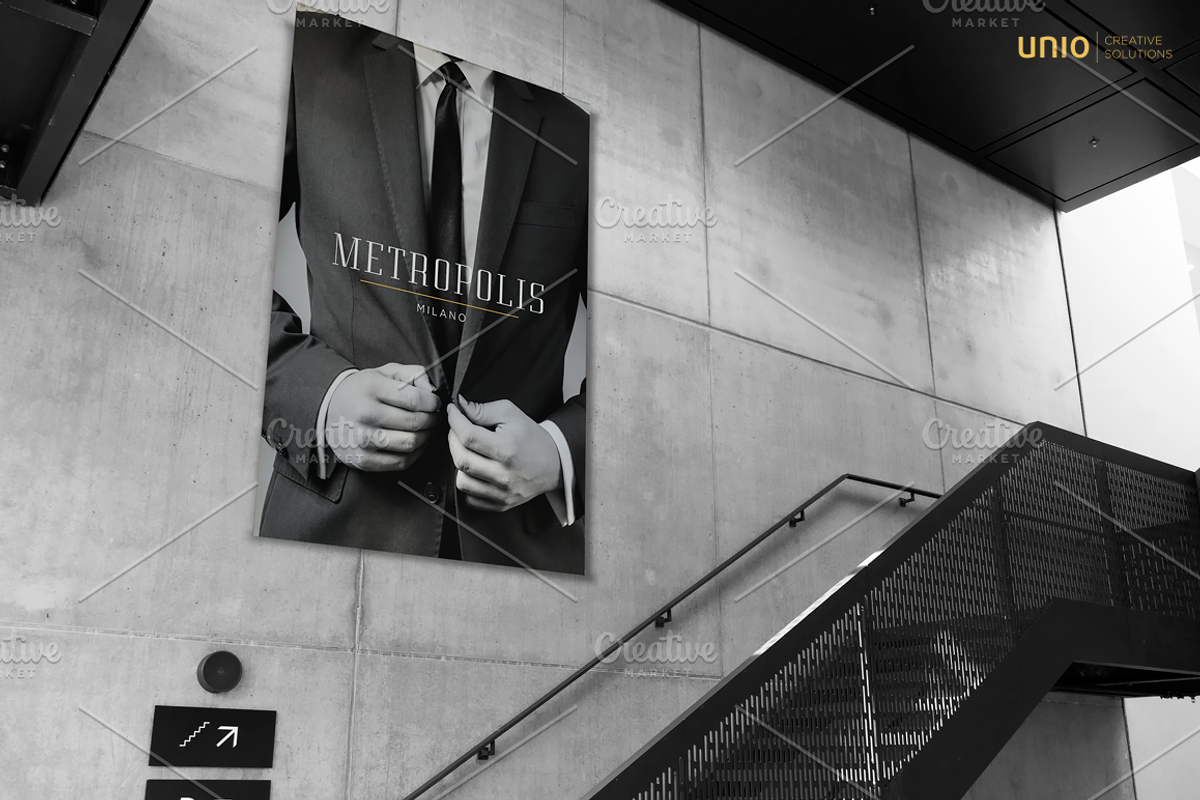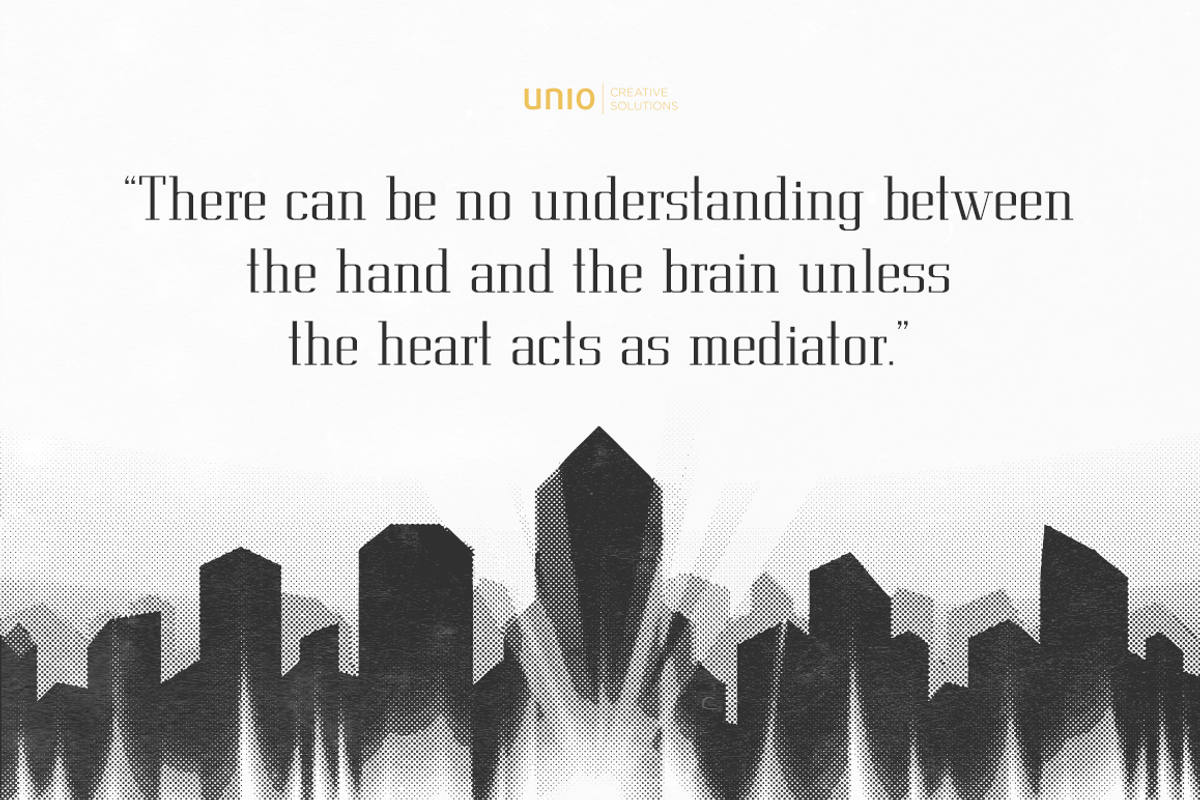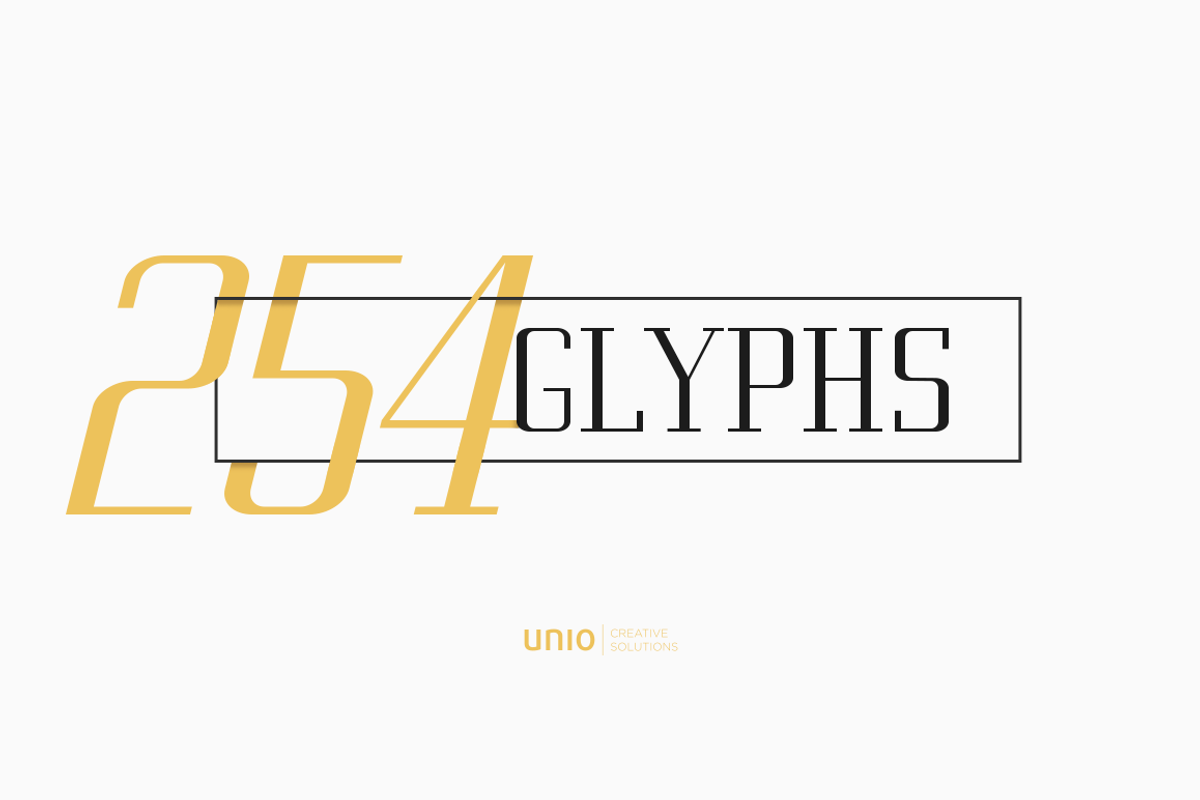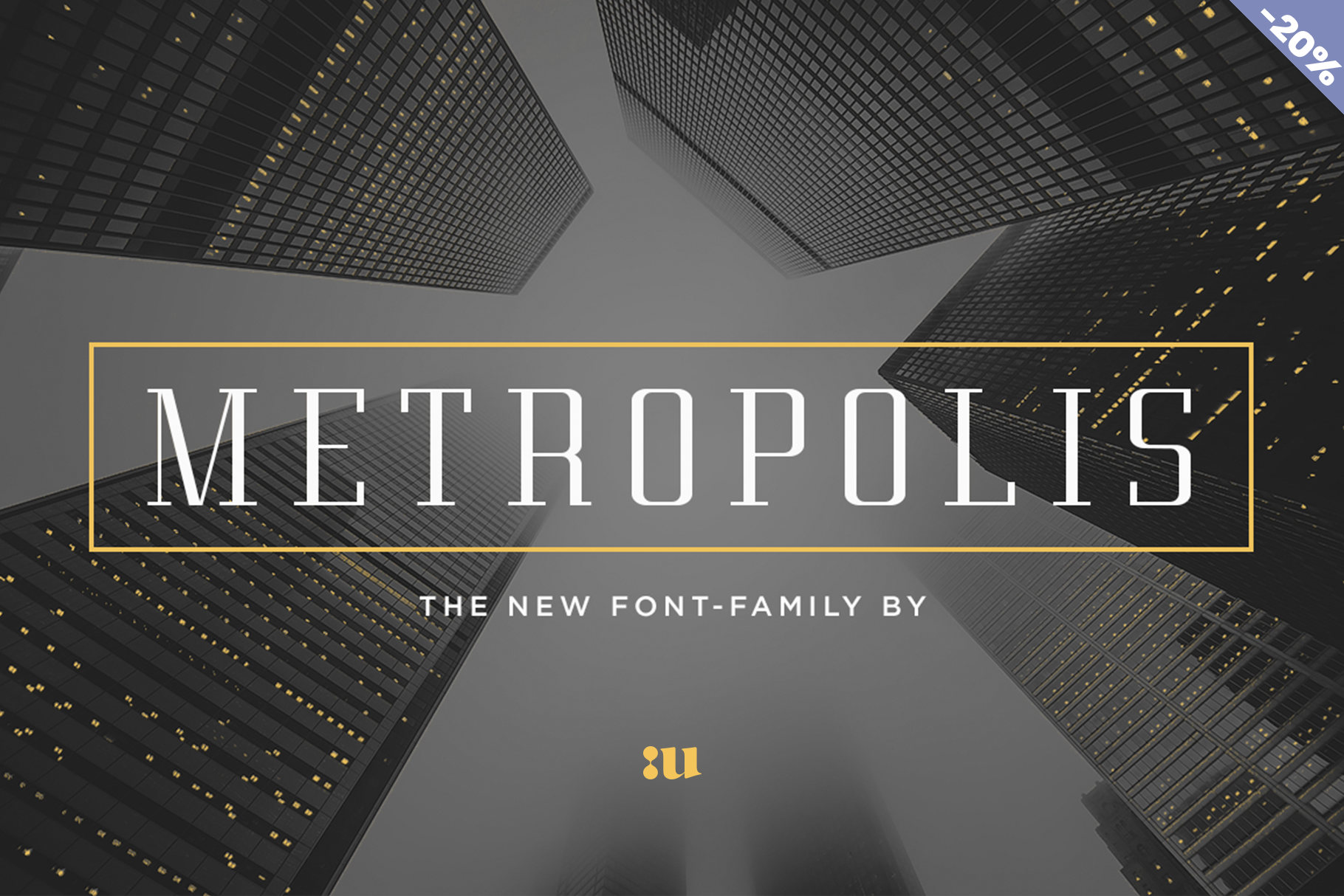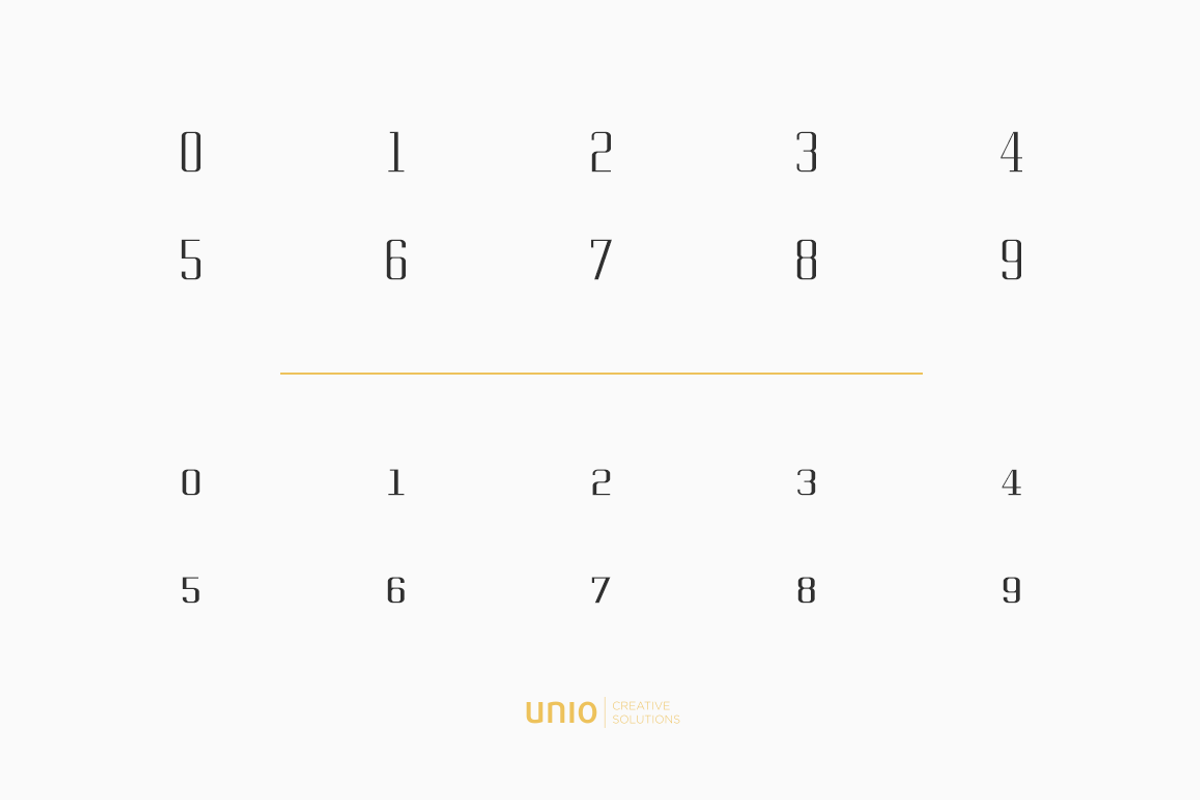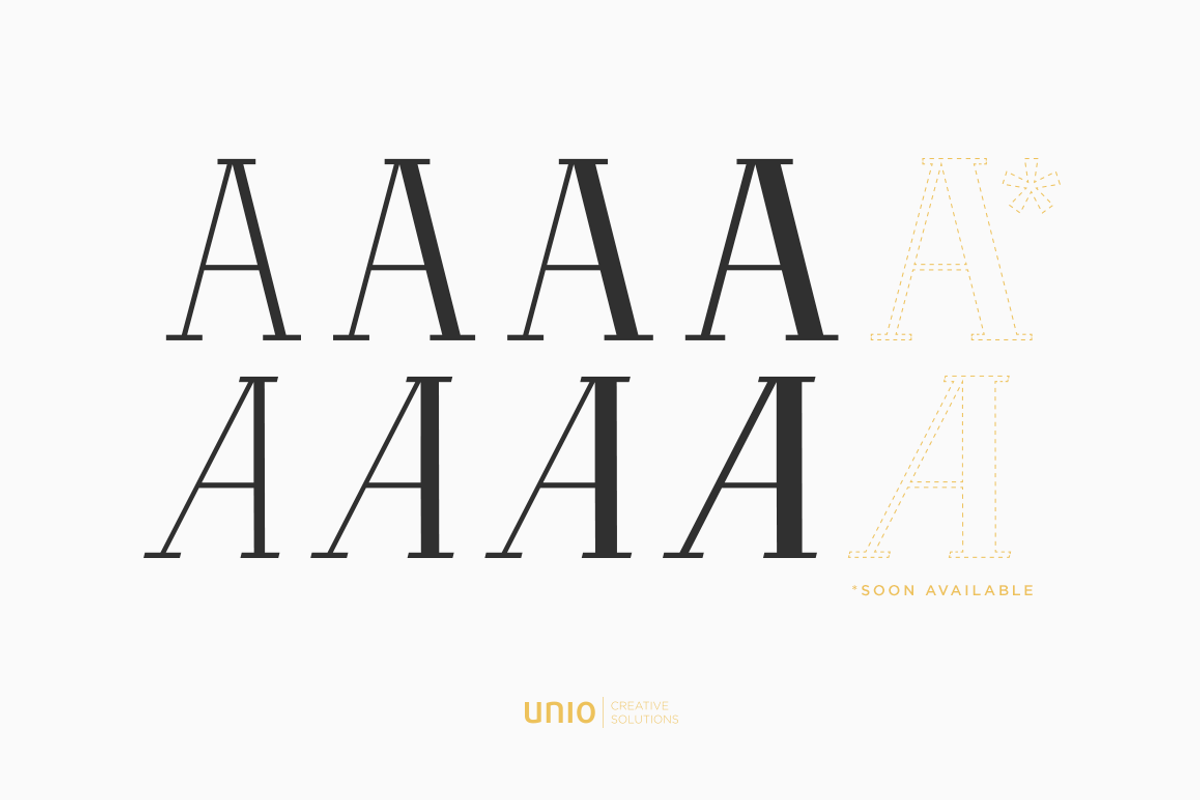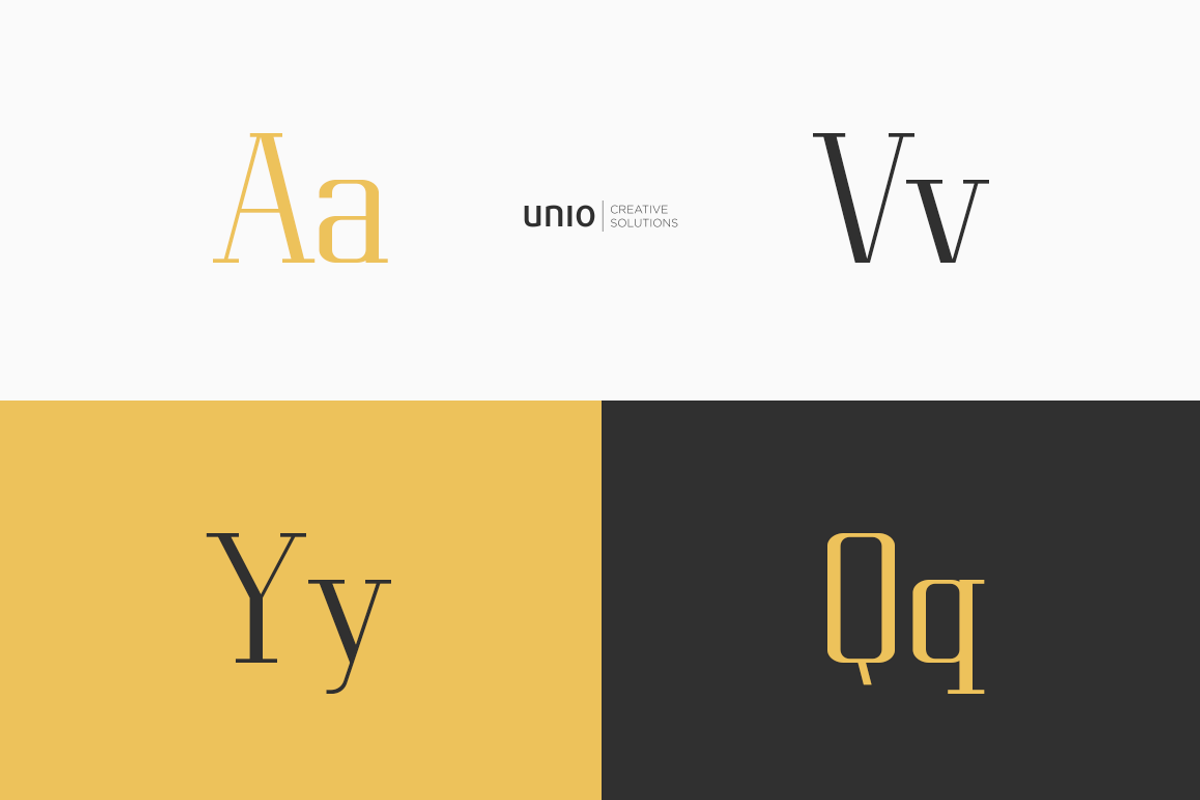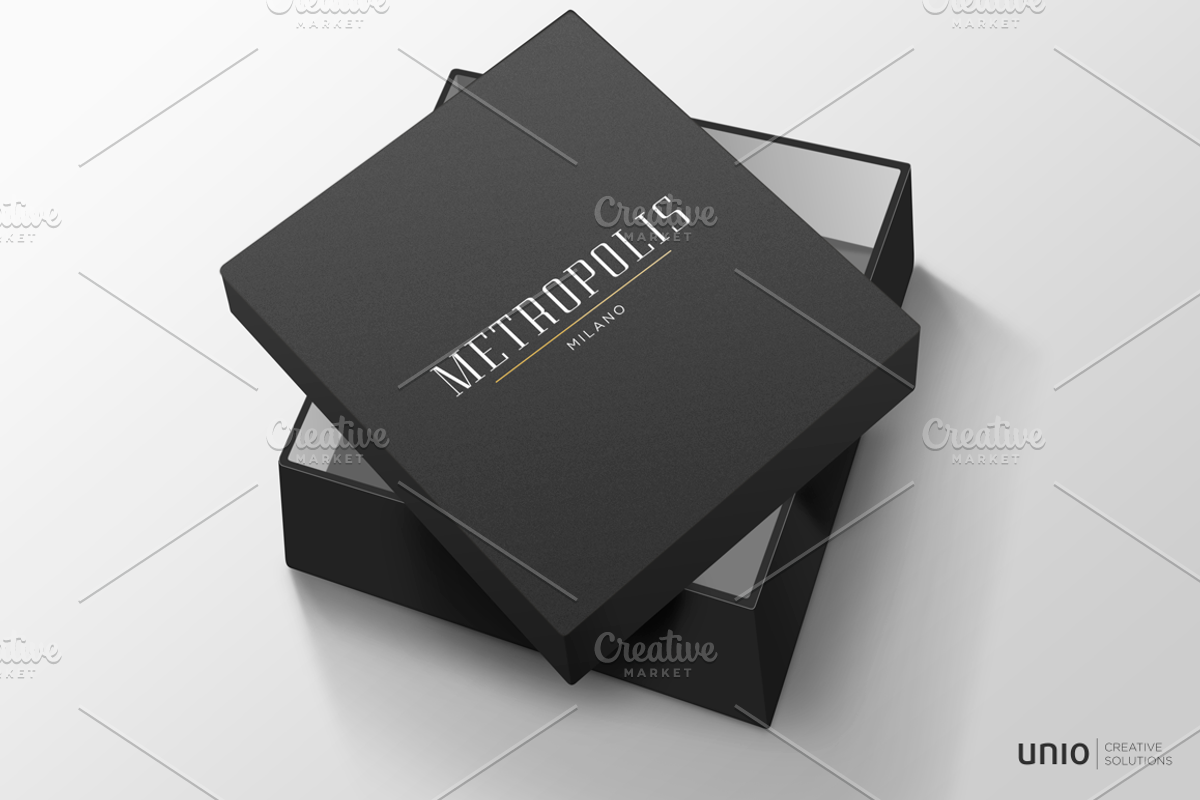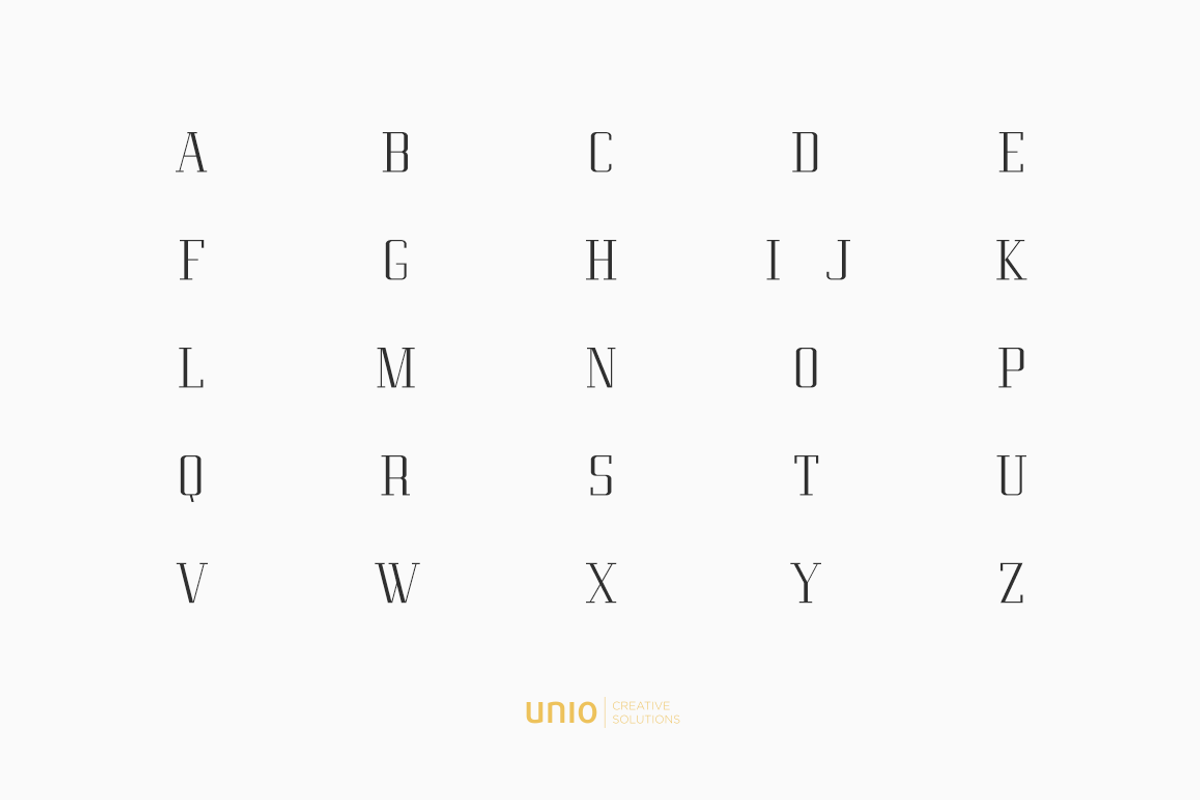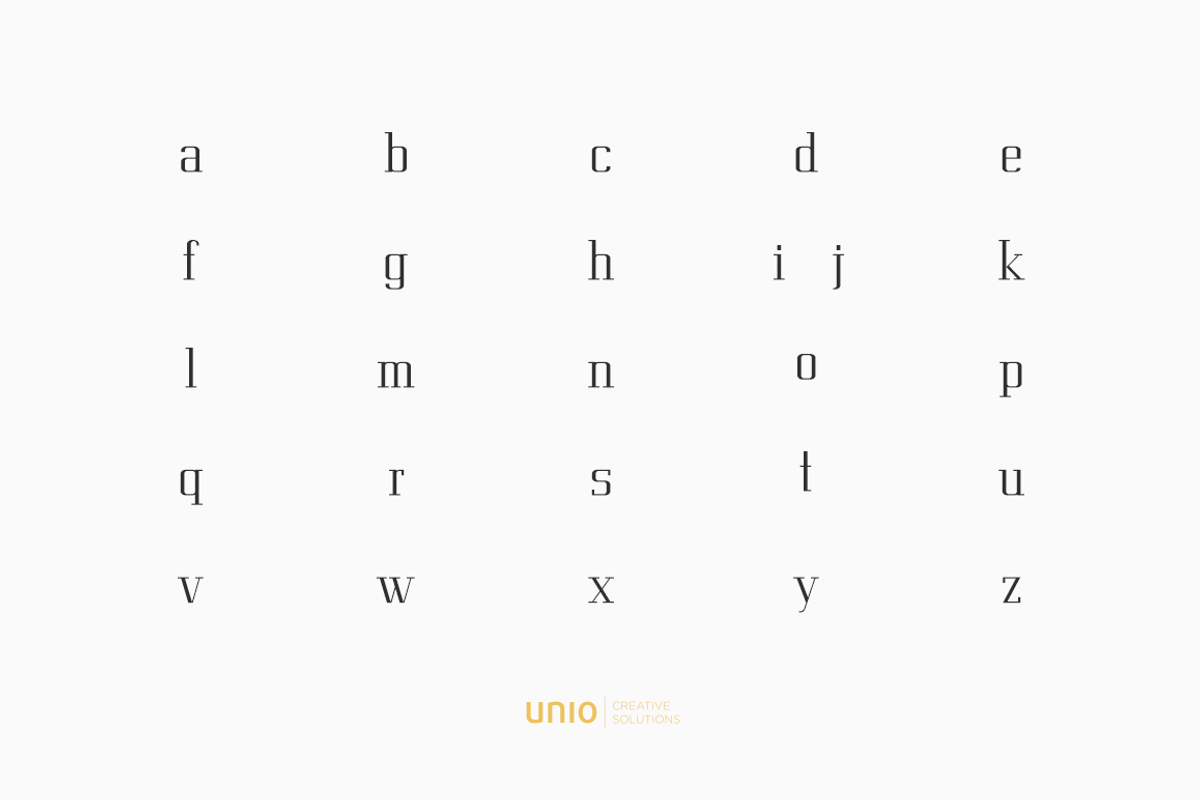
Metropolis - Font Family
Unio presents “Metropolis”.
Inspired by the original 1927 Fritz Lang movie and based on a old classic design, Metropolis font is a classic revival, a combination of modern and classic art. Created to answer contemporary needs of 21st century projects.
This elegant and versatile serif typeface captures the essence of classic and modern city, the dualism between the working class and the city planners. Through the elegant lines and sinuous curves this font works perfectly for a display reading or beautifully as a headline or as body copy.
Metropolis includes 254 glyphs and comprises thin, light, regular and bold weights with corresponding true italics.